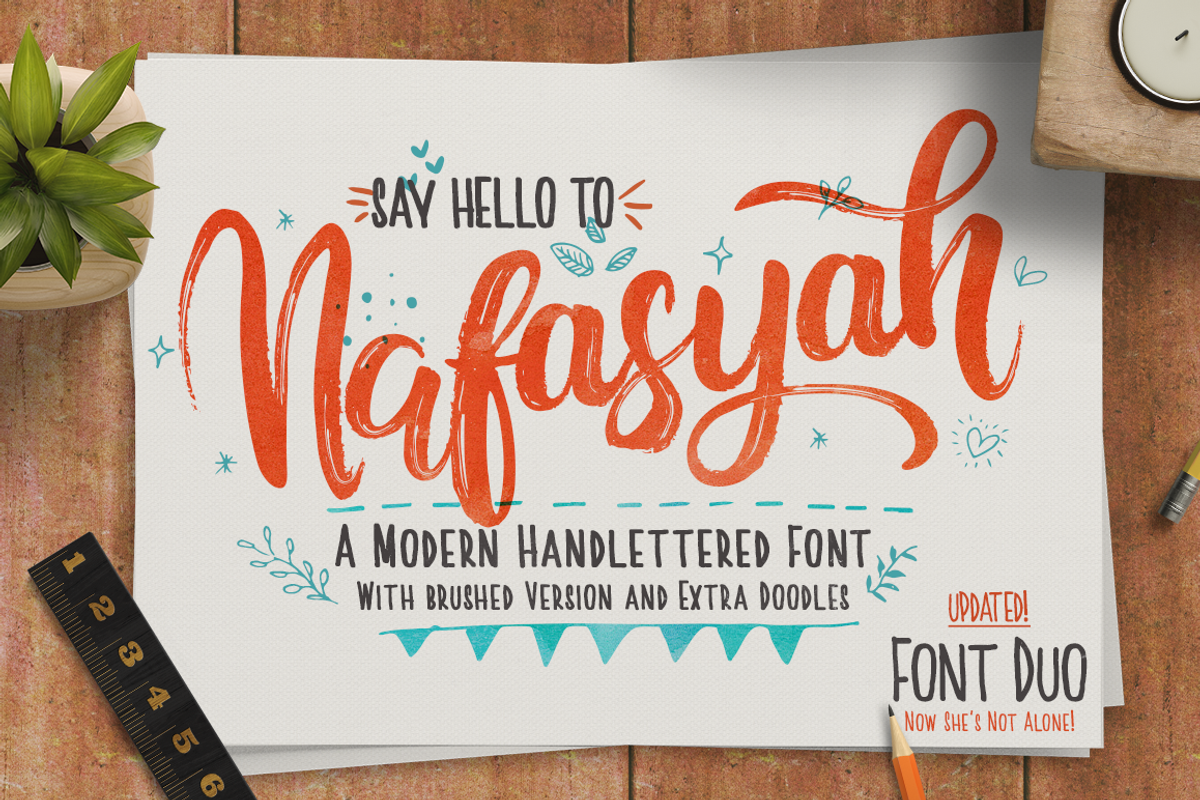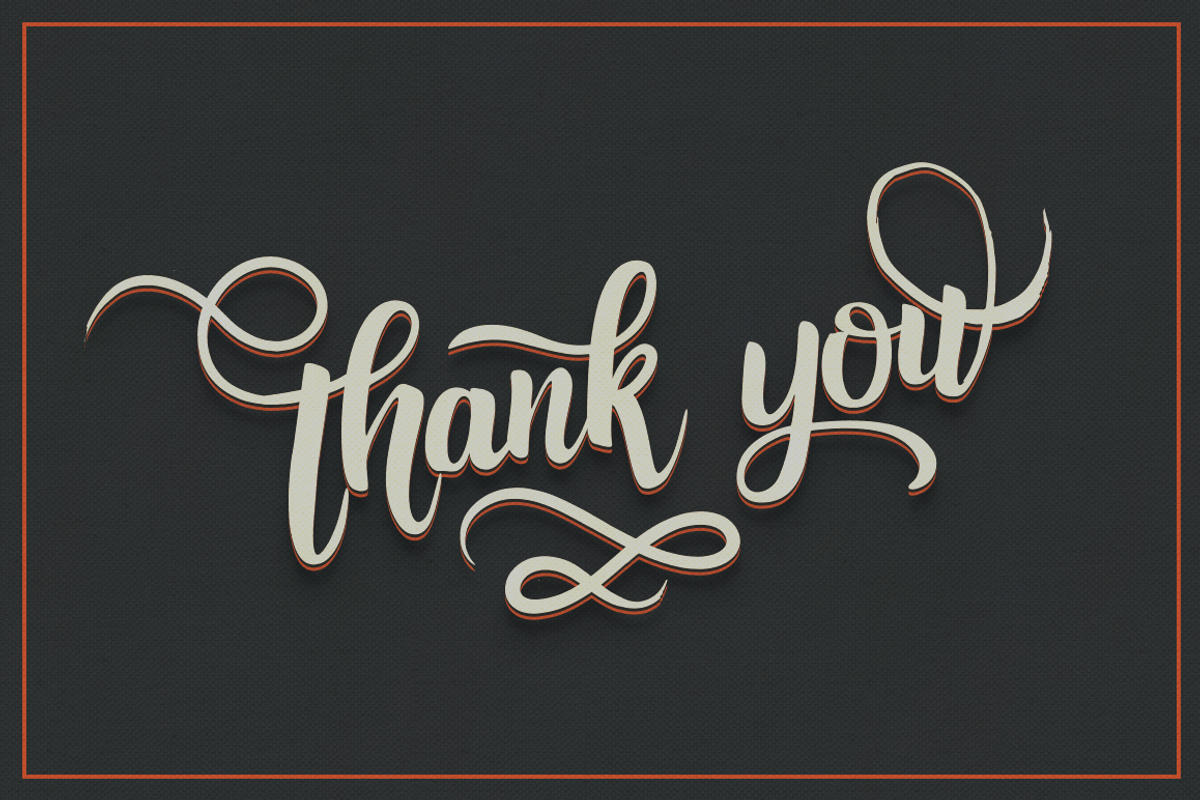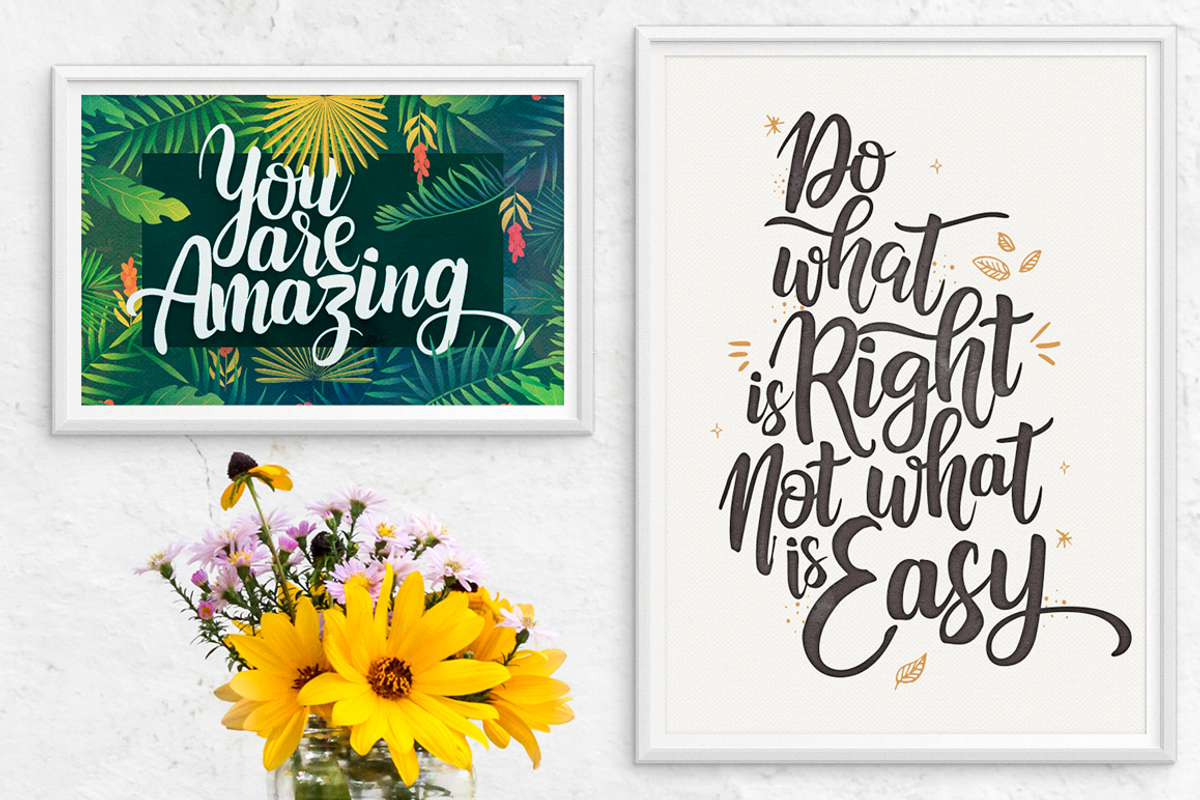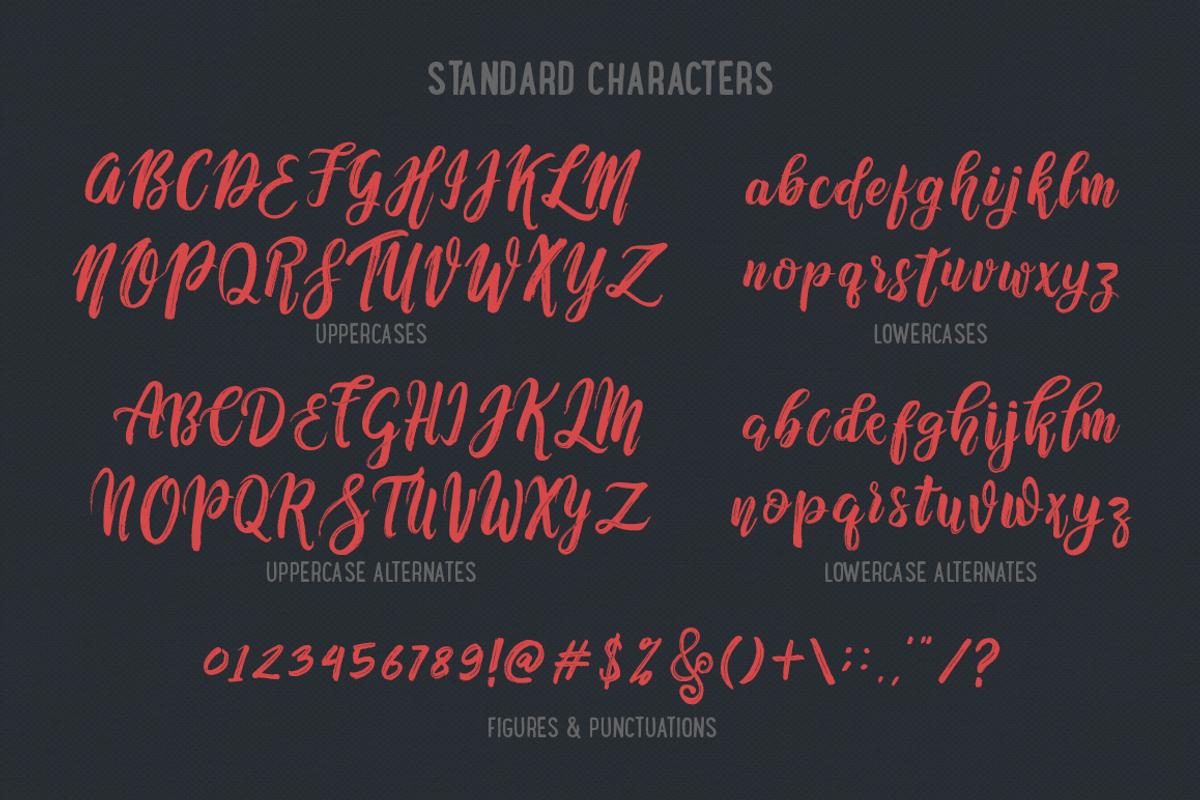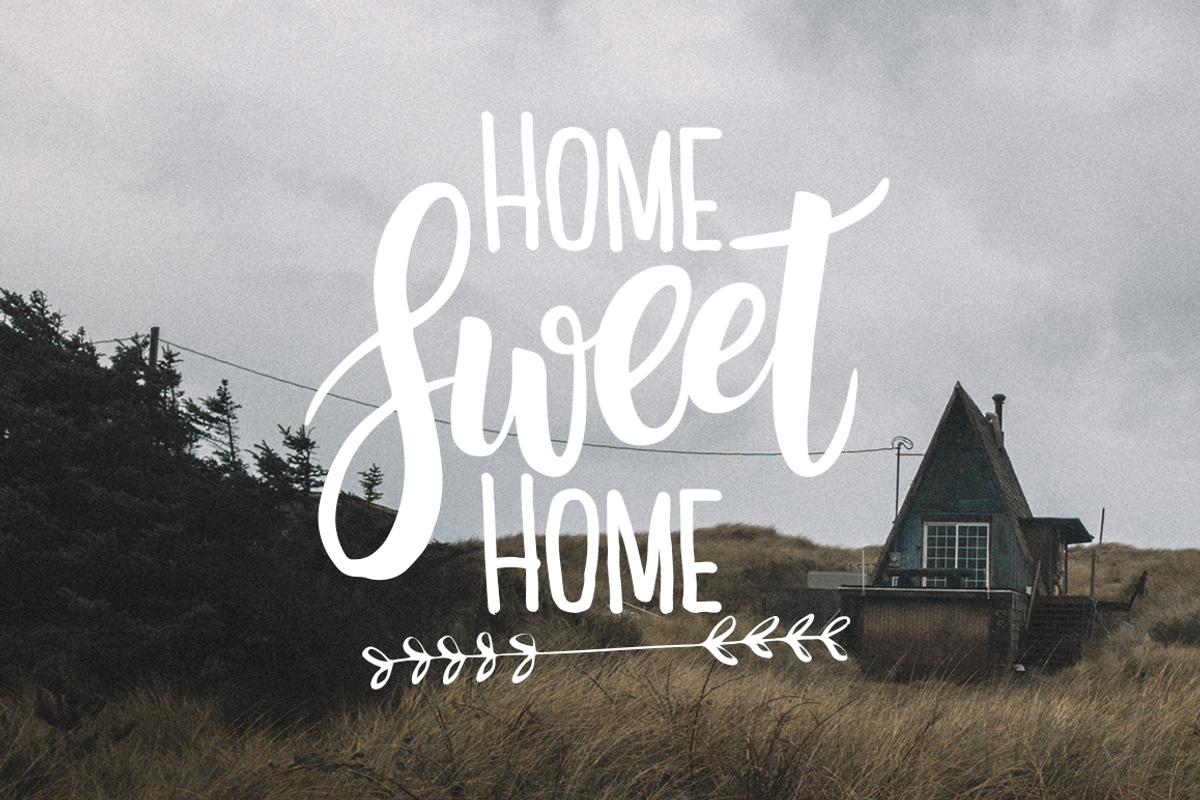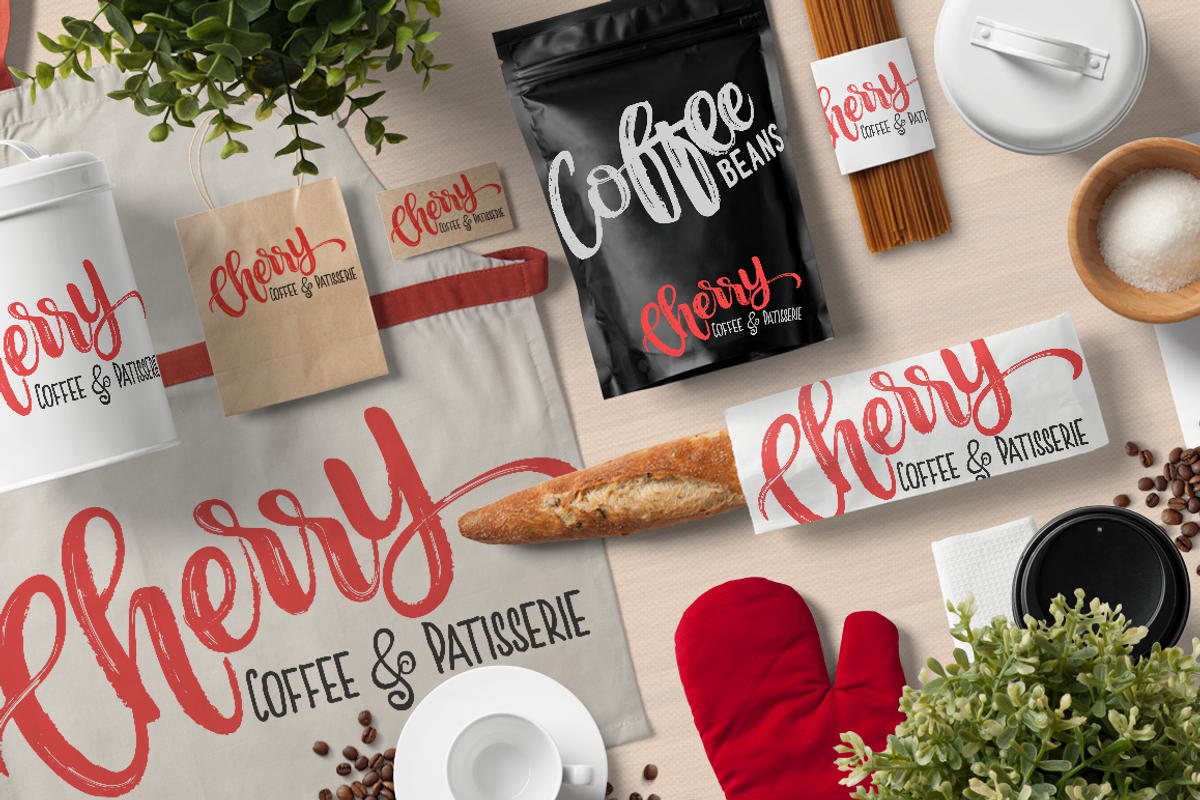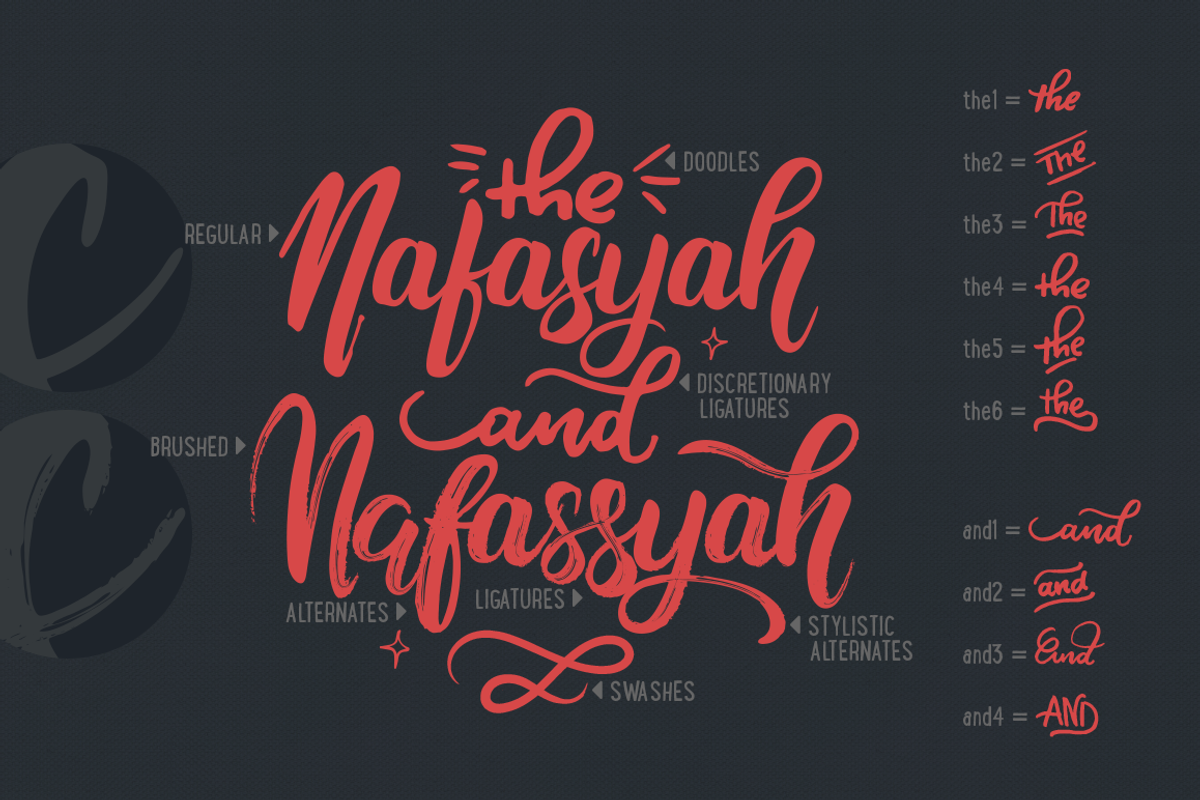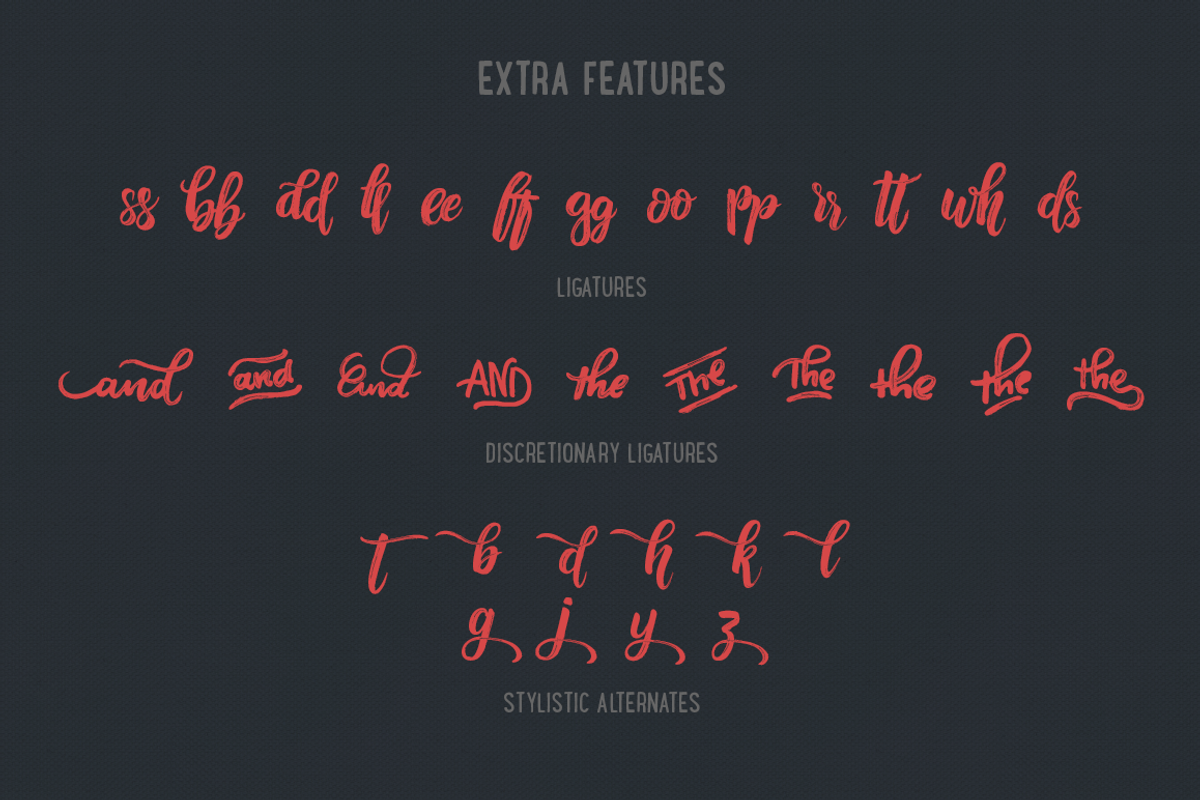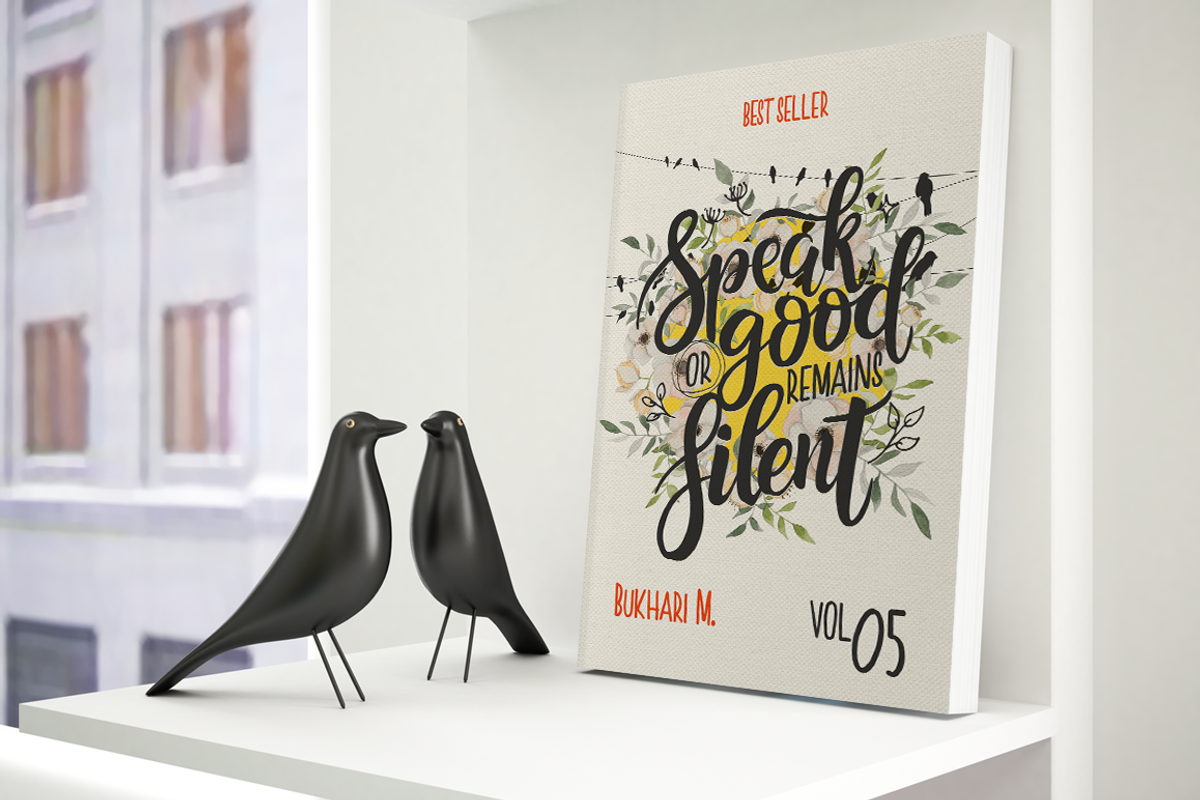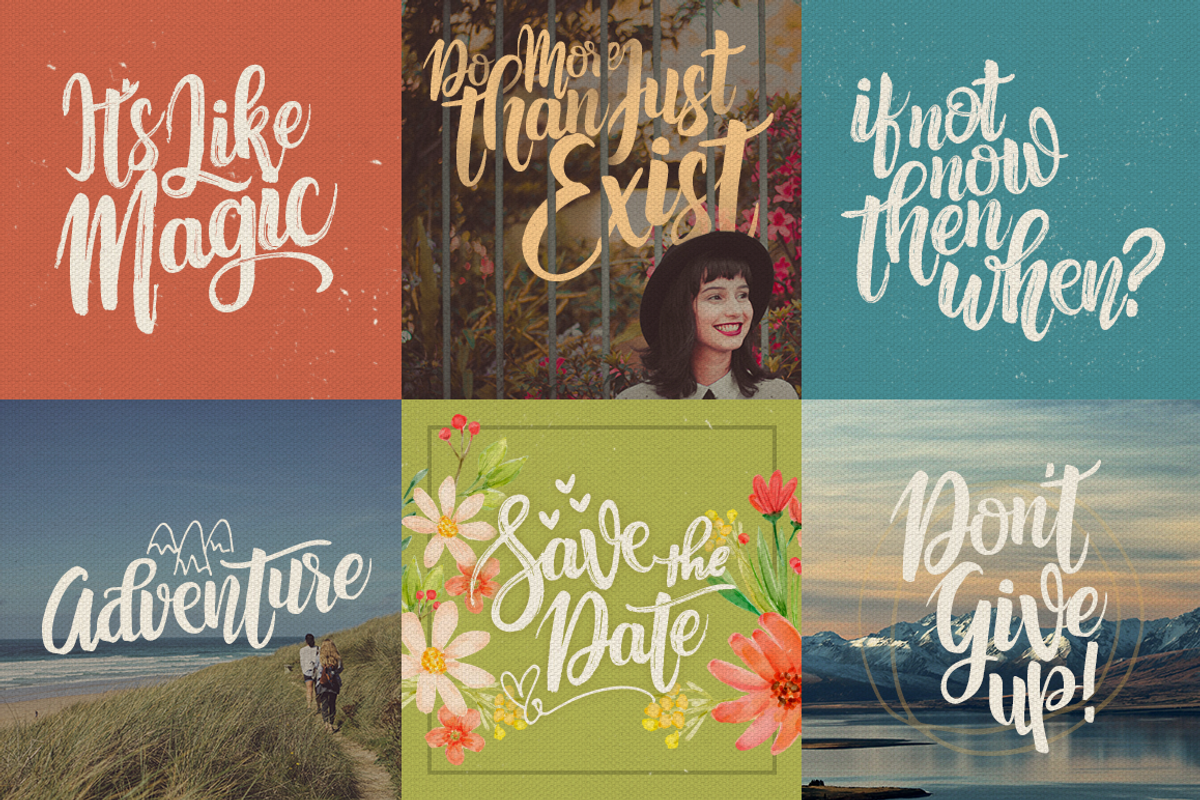
Nafasyah - Brushed Font Duo
Let's welcoming Nafasyah! My very first font ever released in the marketplace.
- Nafasyah Sans Version Now Available ;)
A complete set of hand-lettered font that gives a personal touch to your awesome words and beautiful artworks. Nafasyah updated version comes with regular, brushed, sans and extra (swashes + doodles) version. A standard set including uppercase, lowercase, figures and punctuation characters. Also with special features like alternates, ligatures, discretionary ligatures, and stylistic alternates. Combined with Nafasyah Extra, you will get swashes and doodles to decorate your work.
With Discretionary ligatures, you only need to add numeral character in the end of the word "and" and "the". For example, you can type and1, and2, and3, or and4 to display "and" ligatures. Or just type the1, the2, the3, the4, the5, or the6 to display "the" ligatures. So fun and easy!